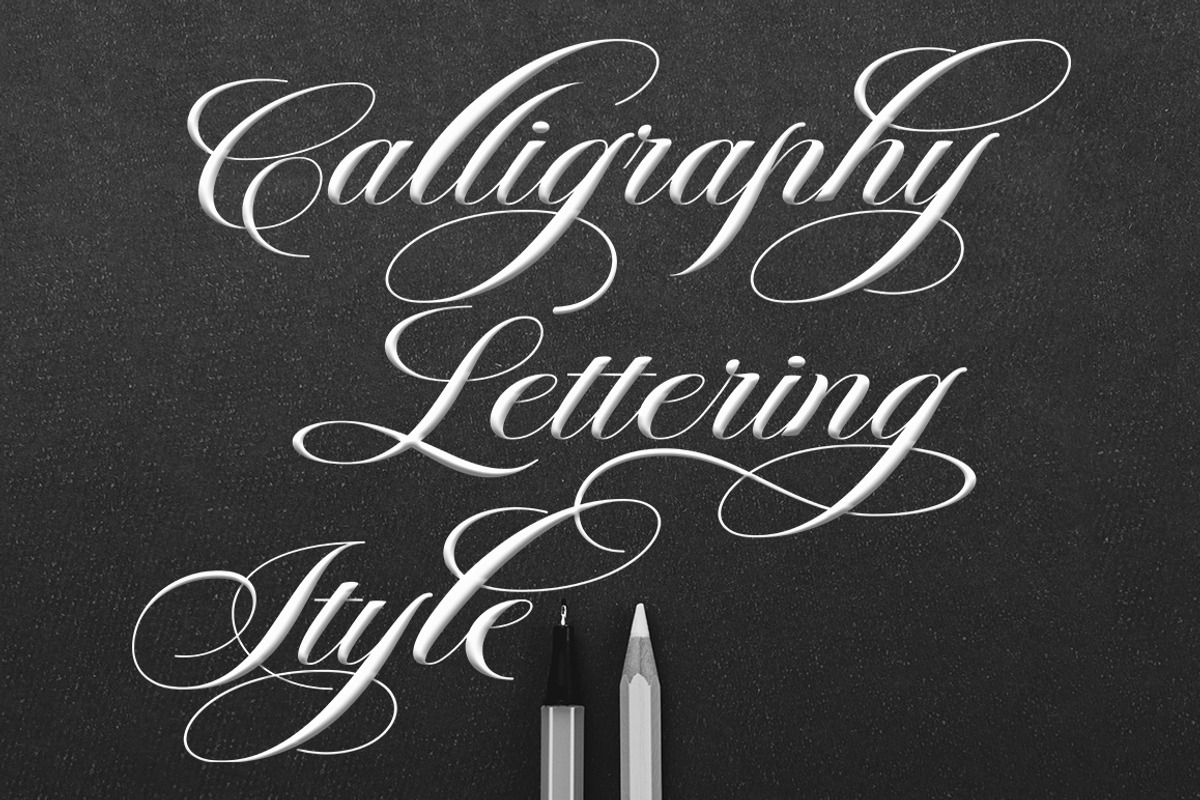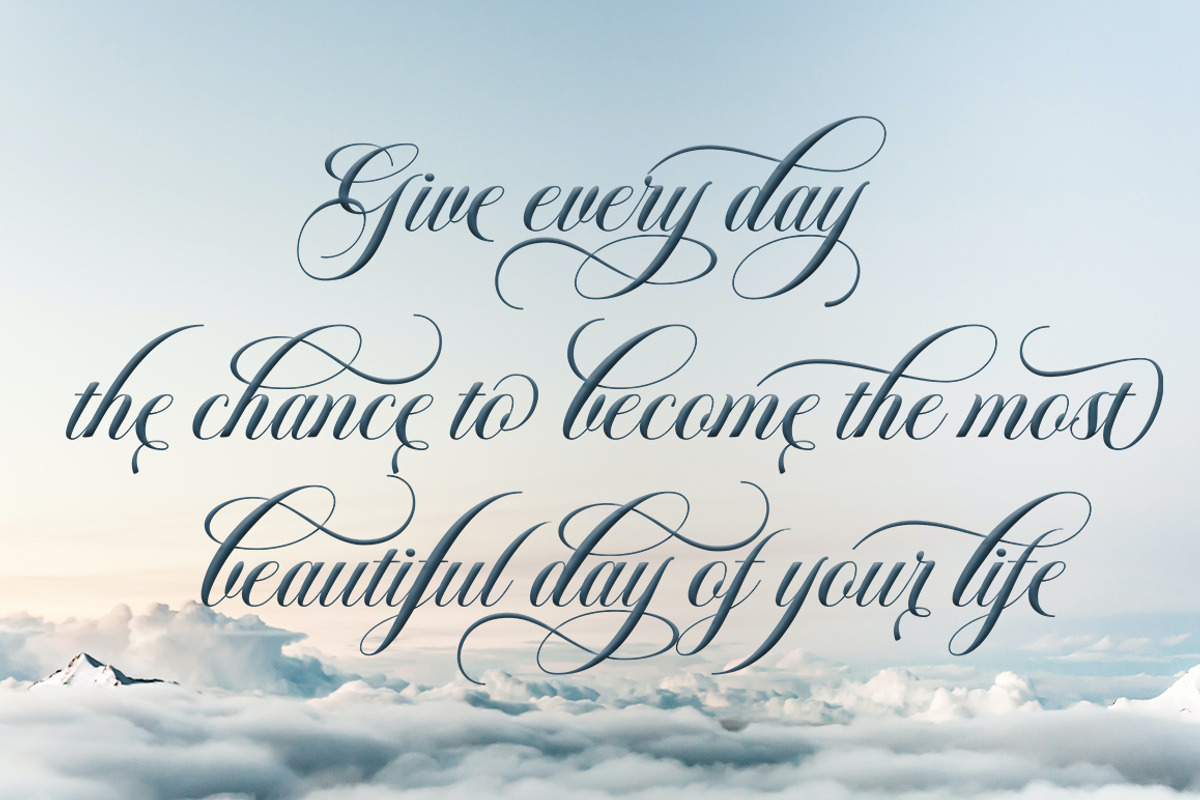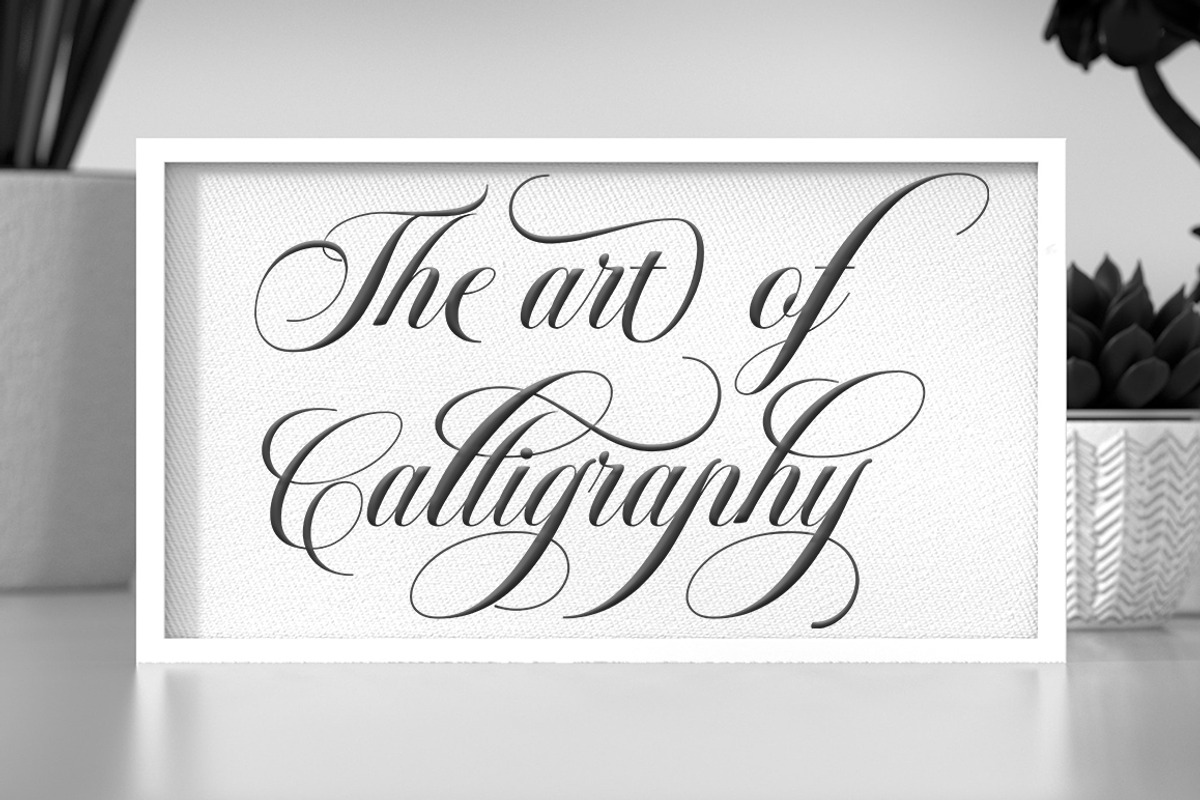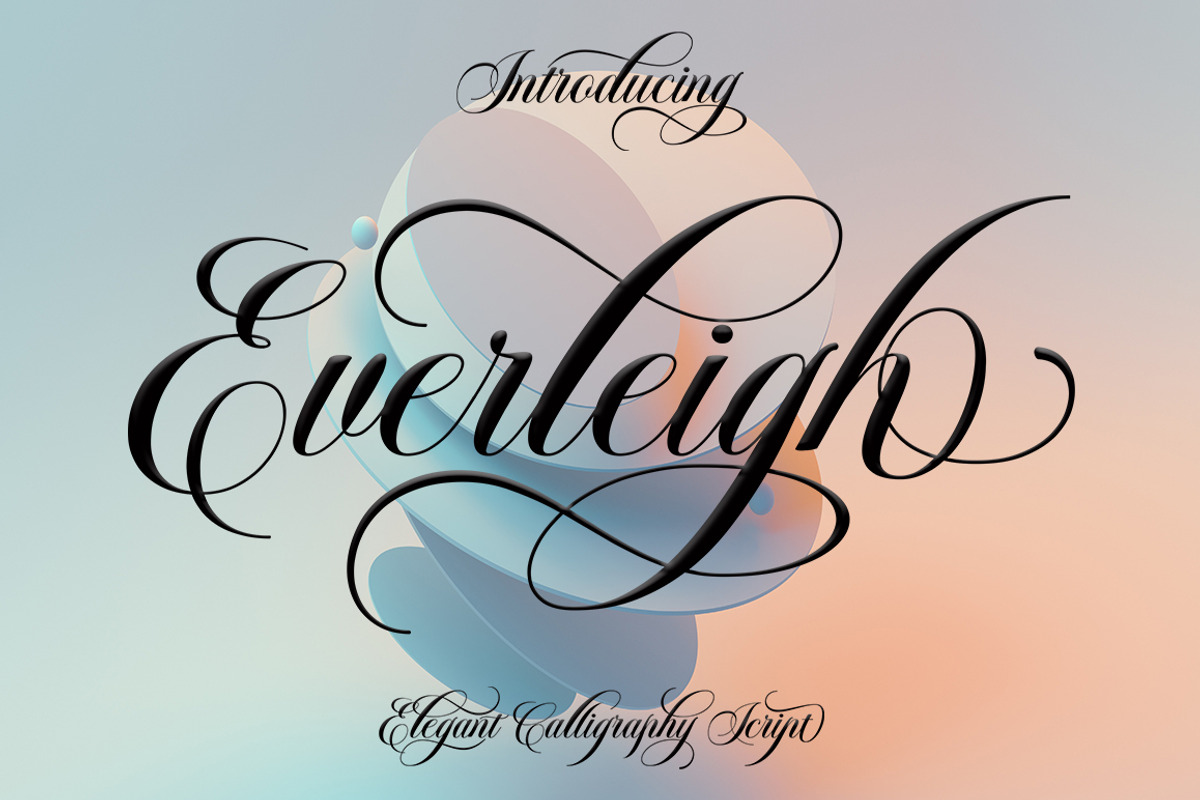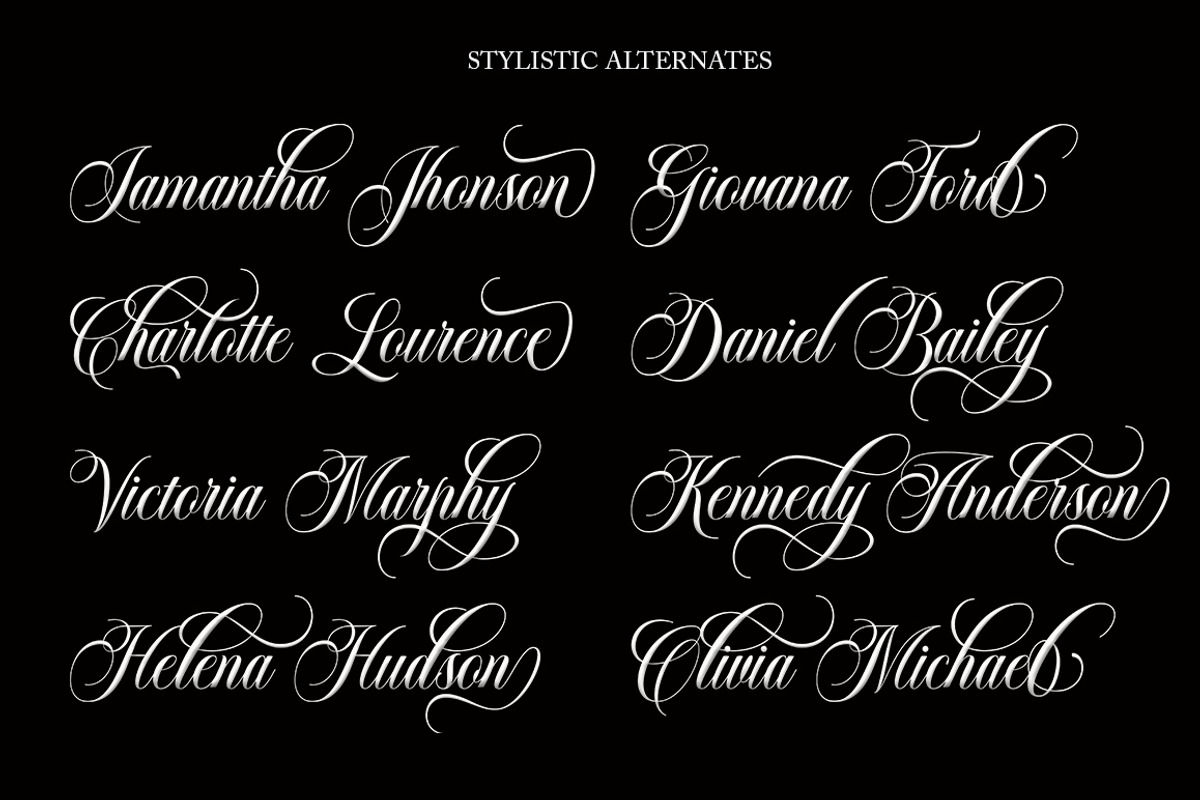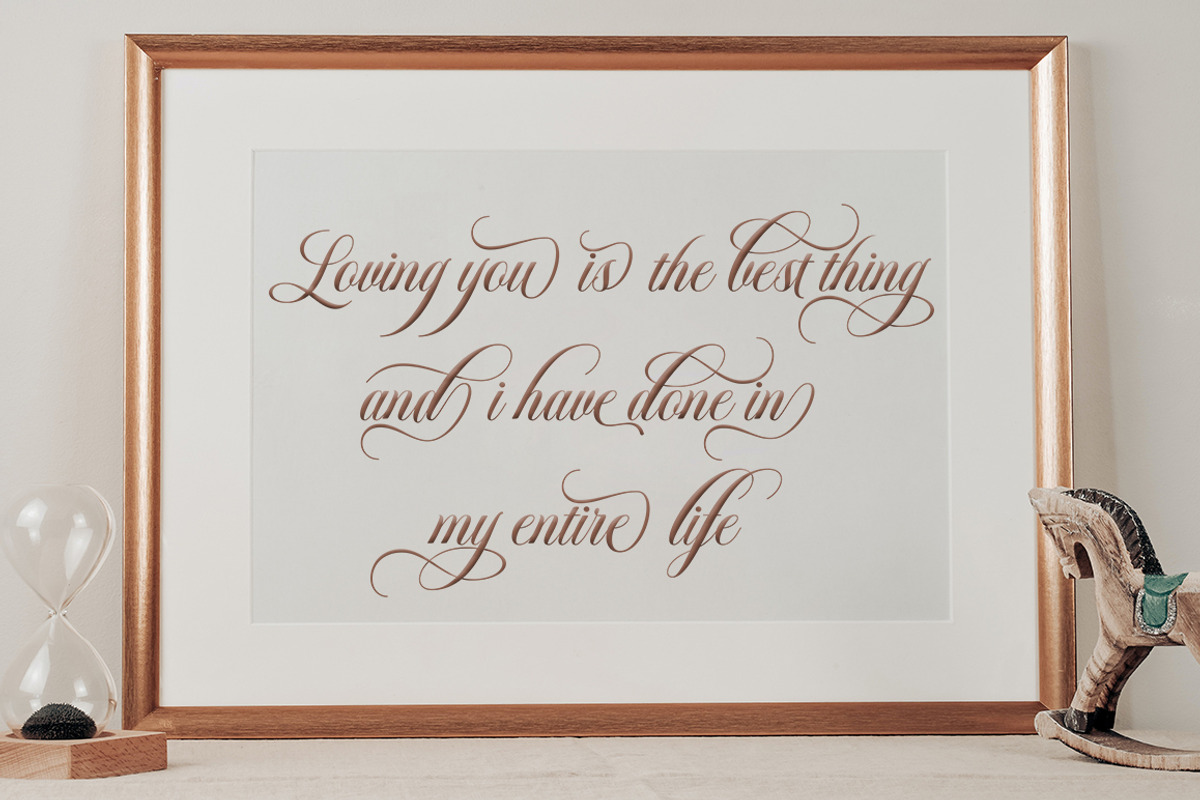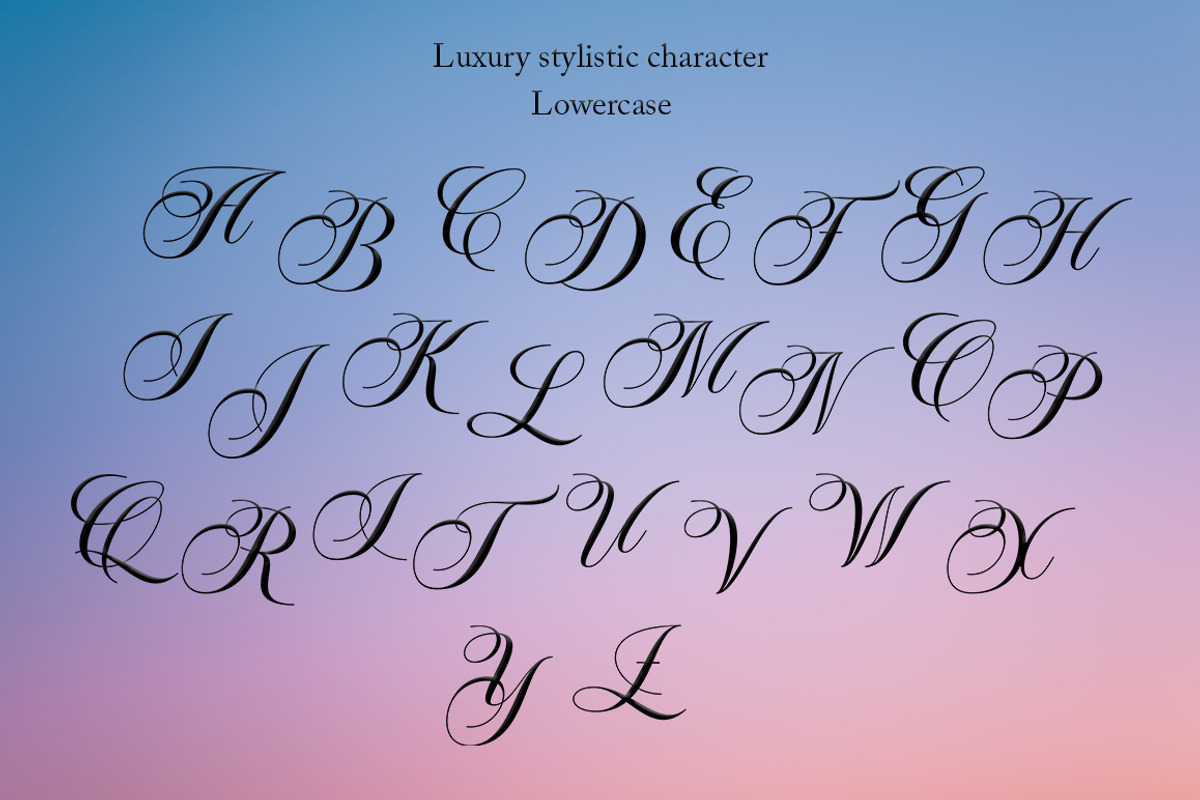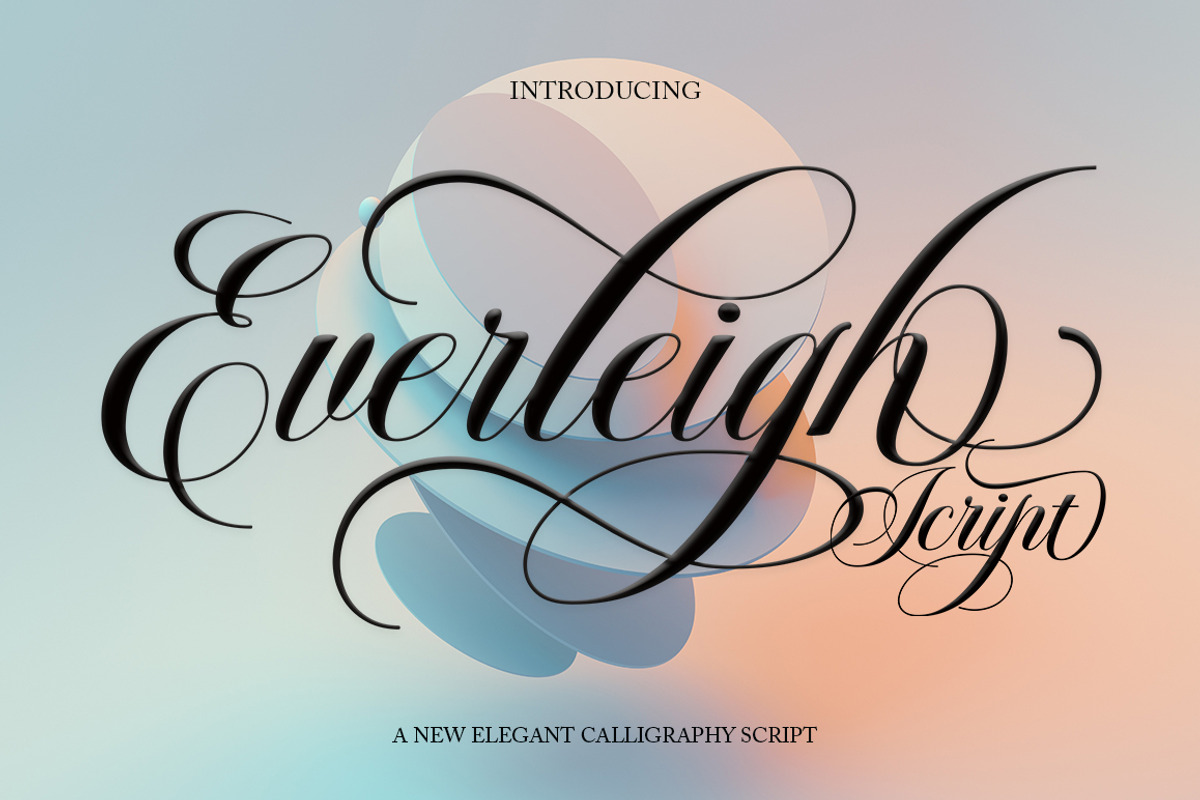
Everleigh Script
Everleigh Script including alternative characters, ligatures and various language support. With the OpenType feature with an alternative style and elegant binder. The OpenType feature does not function automatically, but you can access it manually and for the best results needed for your creativity in combining these Glyph variations. and also a touch of ornament makes this font look elegant.